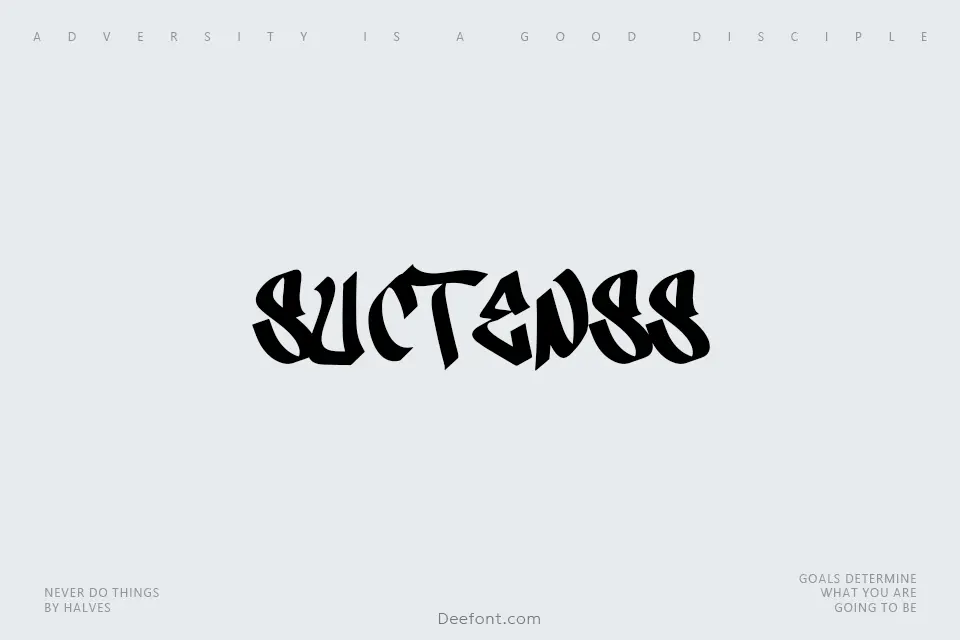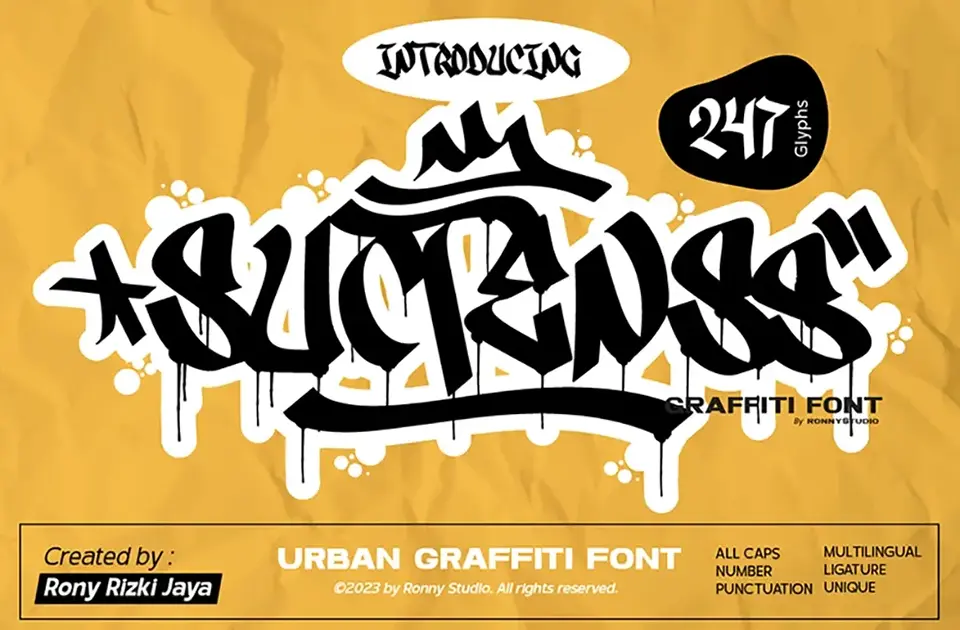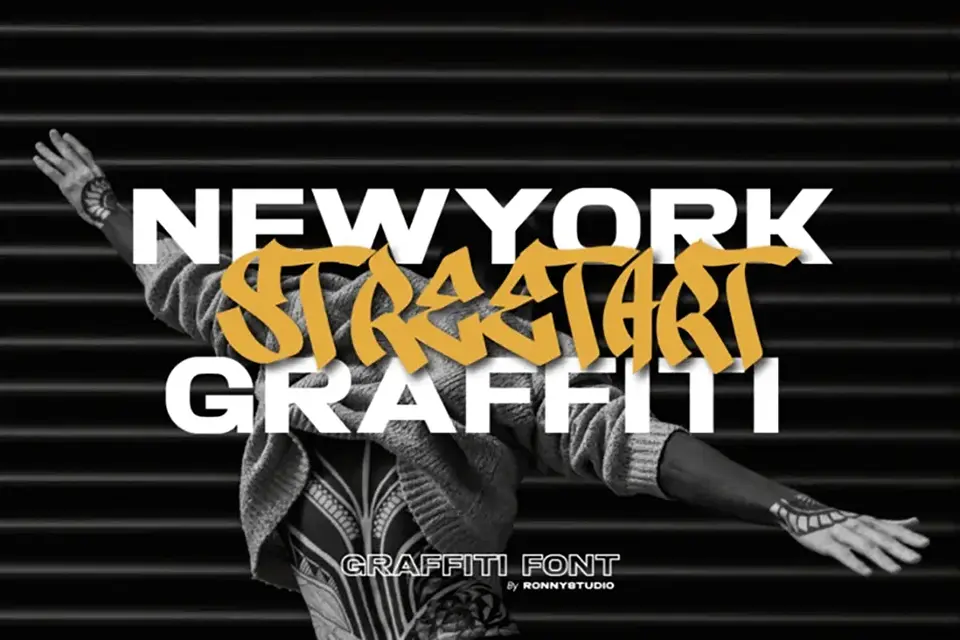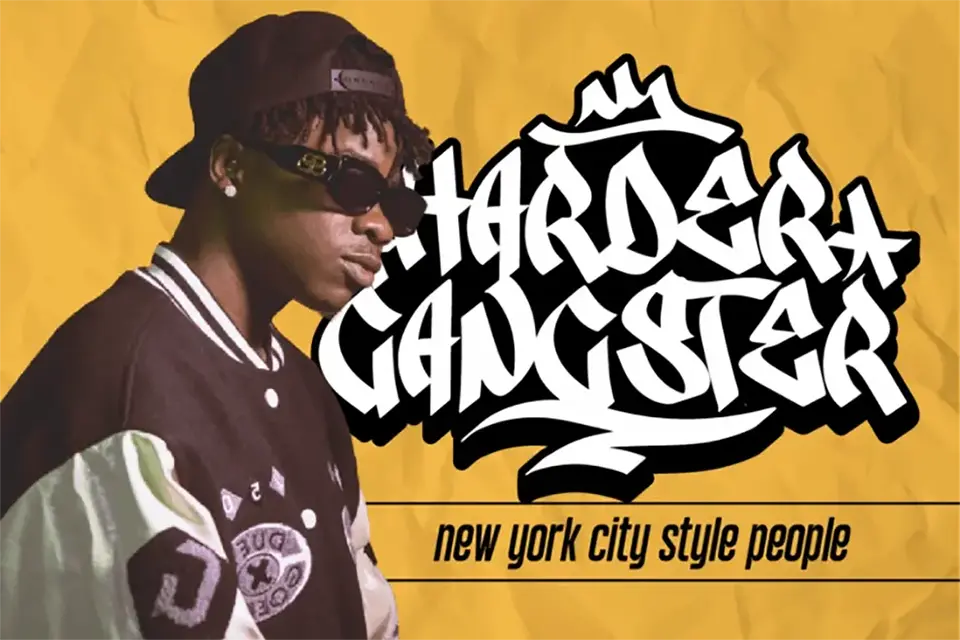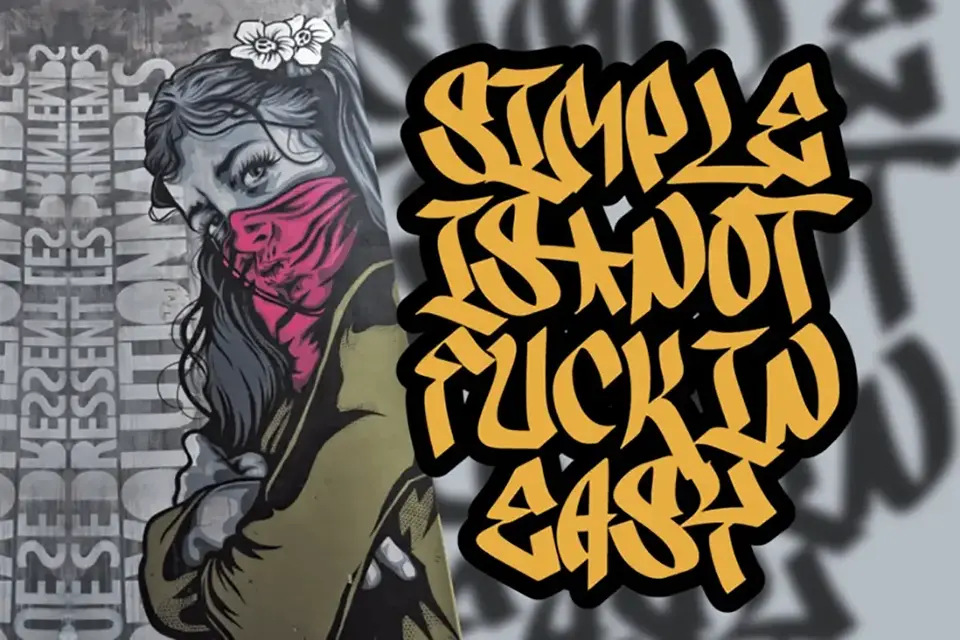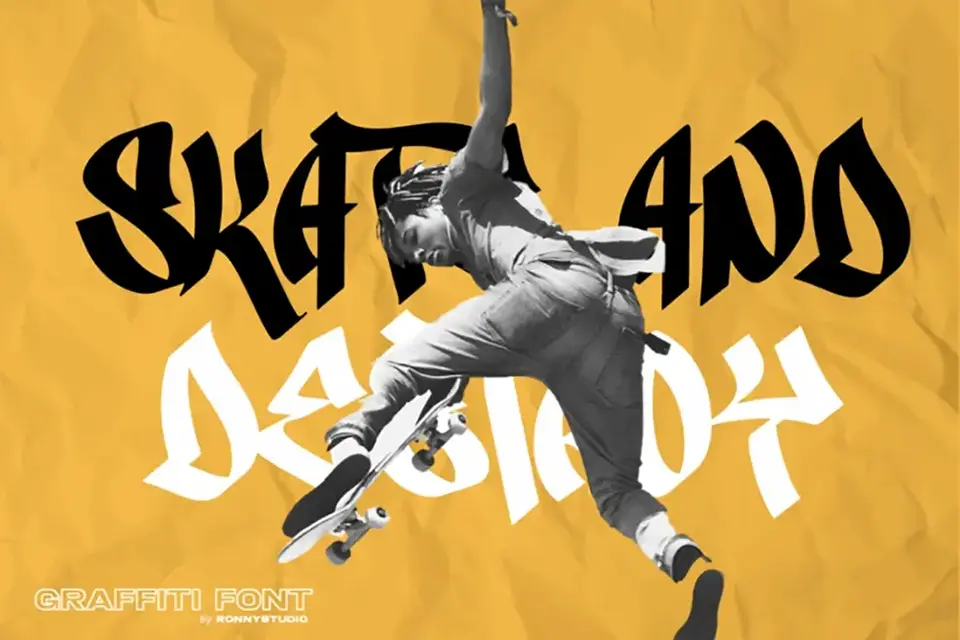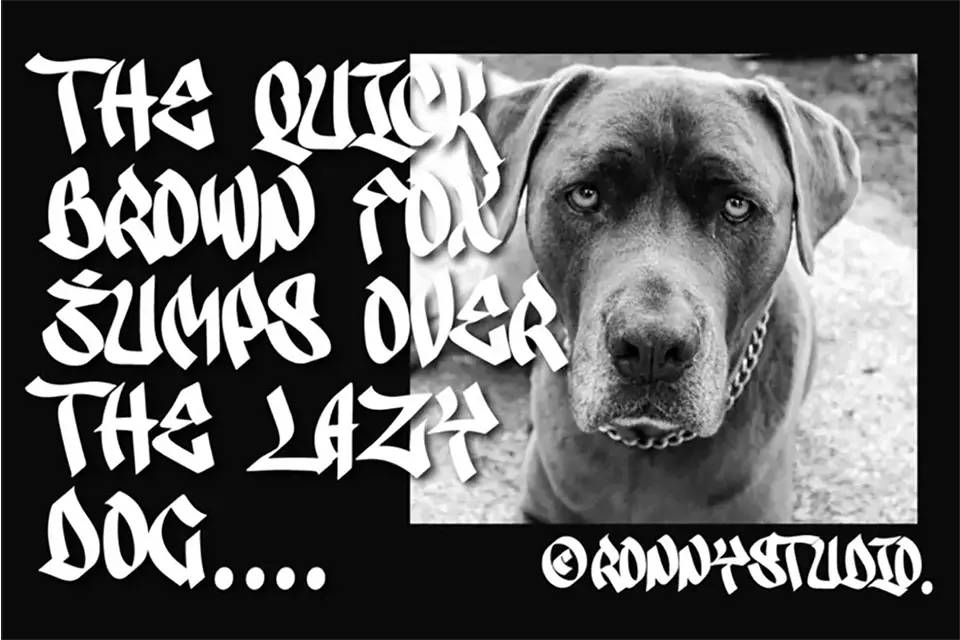
Suctenss Font
Suctenss is a striking urban graffiti font crafted by Ronny Studio, inspired by realistic calligraphy marking styles found in metropolitan street art. With bold, dynamic strokes and expressive letterforms, this display typeface captures the raw energy and authentic spirit of street culture. Featuring exaggerated curves and fluid movements, Suctenss is ideal for branding, posters, album covers, streetwear design, and creative projects seeking an impactful visual presence. The font combines bold street aesthetics with readability, making it perfect for headlines and graphic designs that demand attention.